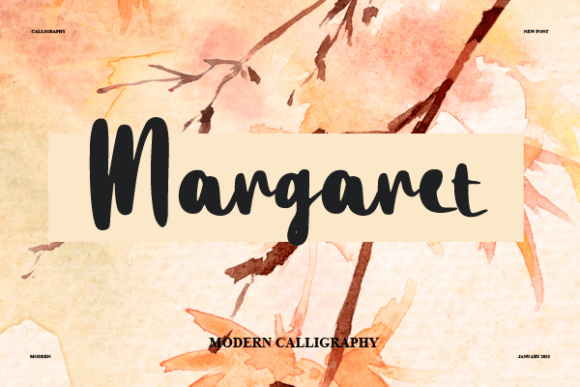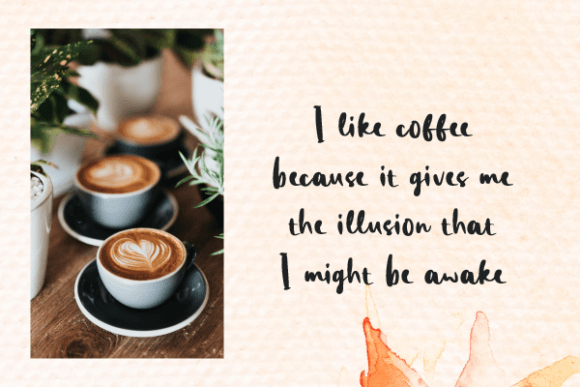
About Margaret
Margaret is a classy and supremely legible handwritten script font that stands out in both large and small designs be it a display or body text. It’s elegant but it somehow still maintains a casual accent, which makes it incredibly versatile and suitable for a wide range of design ideas.